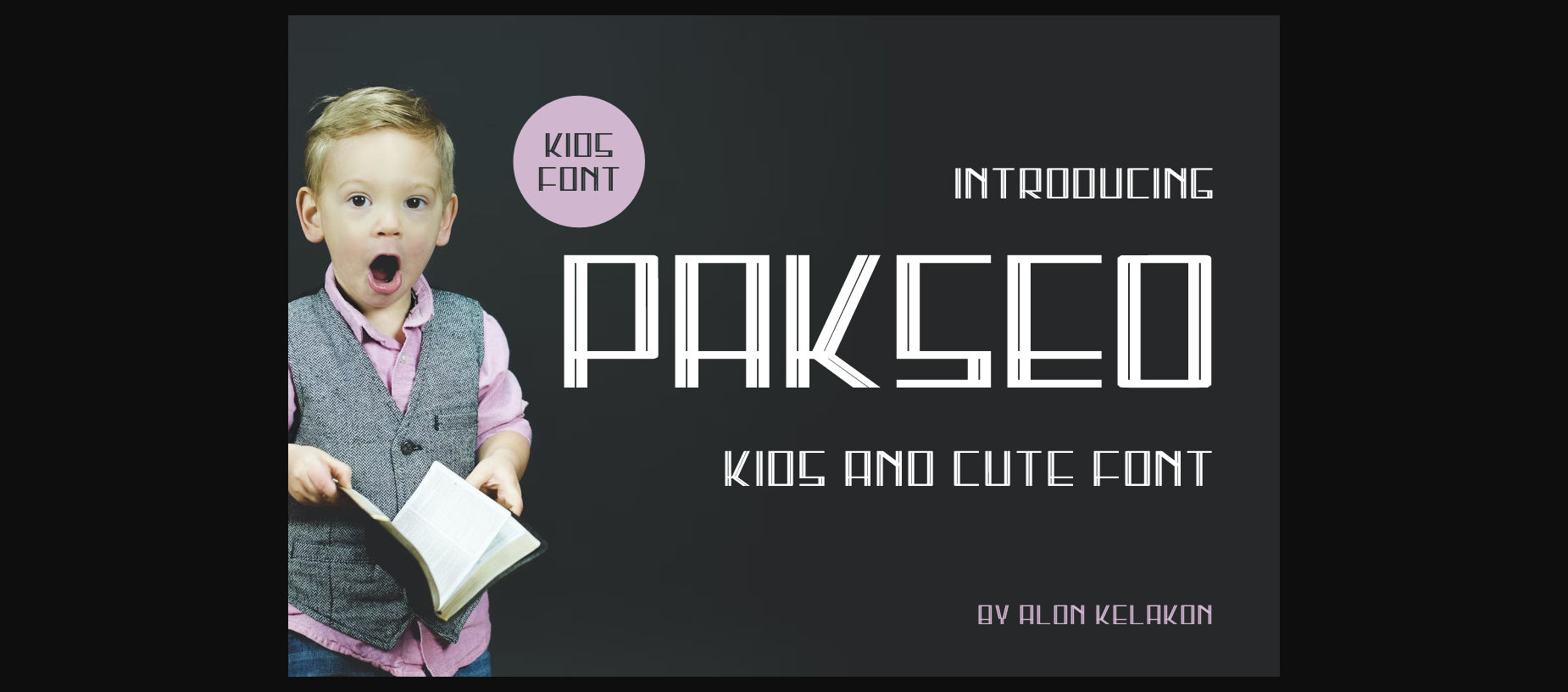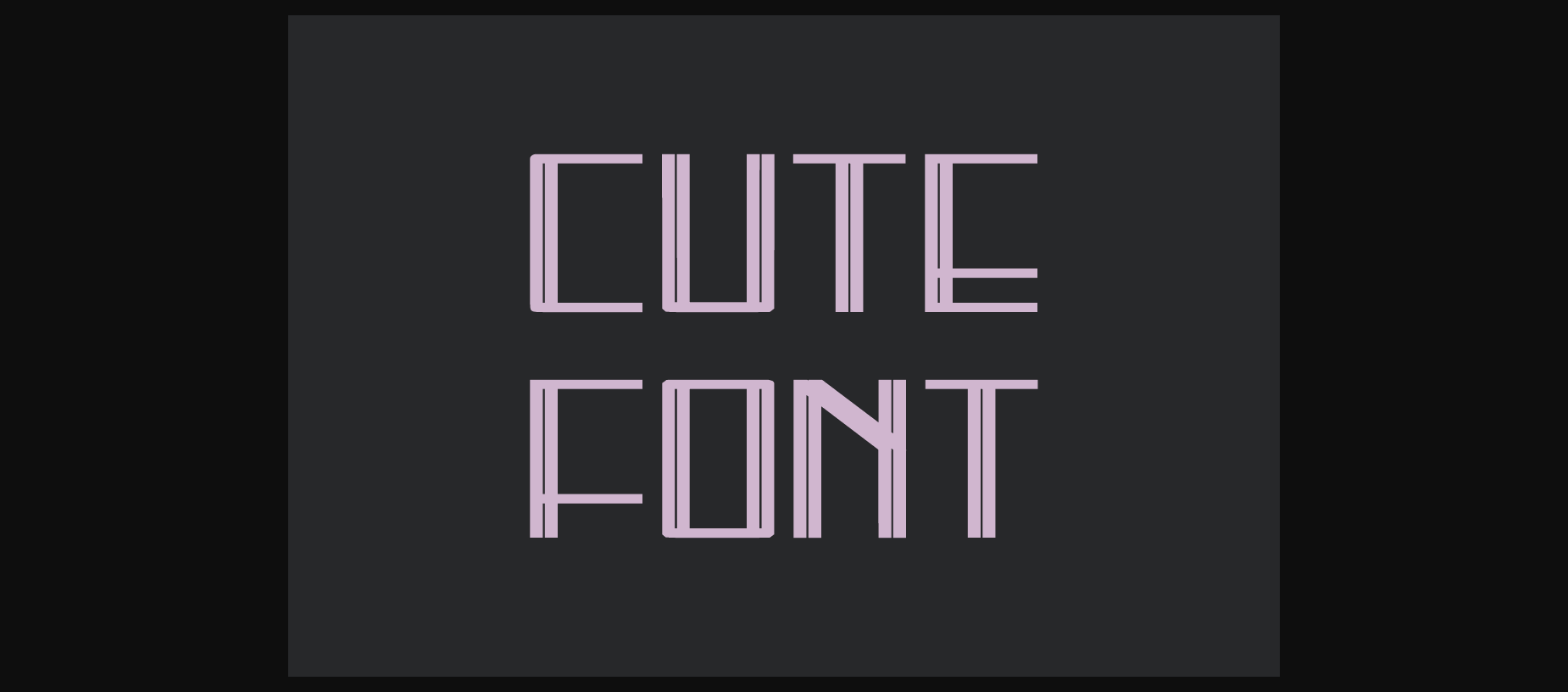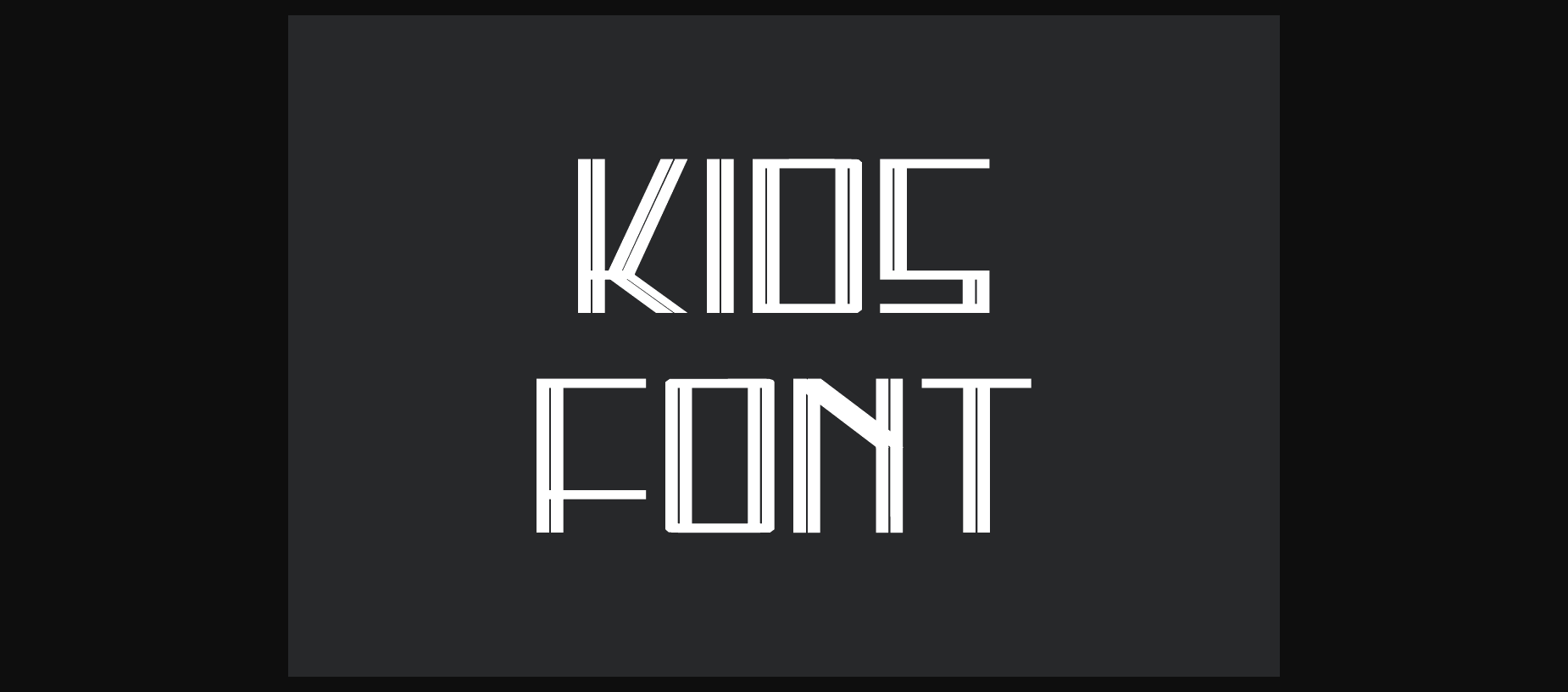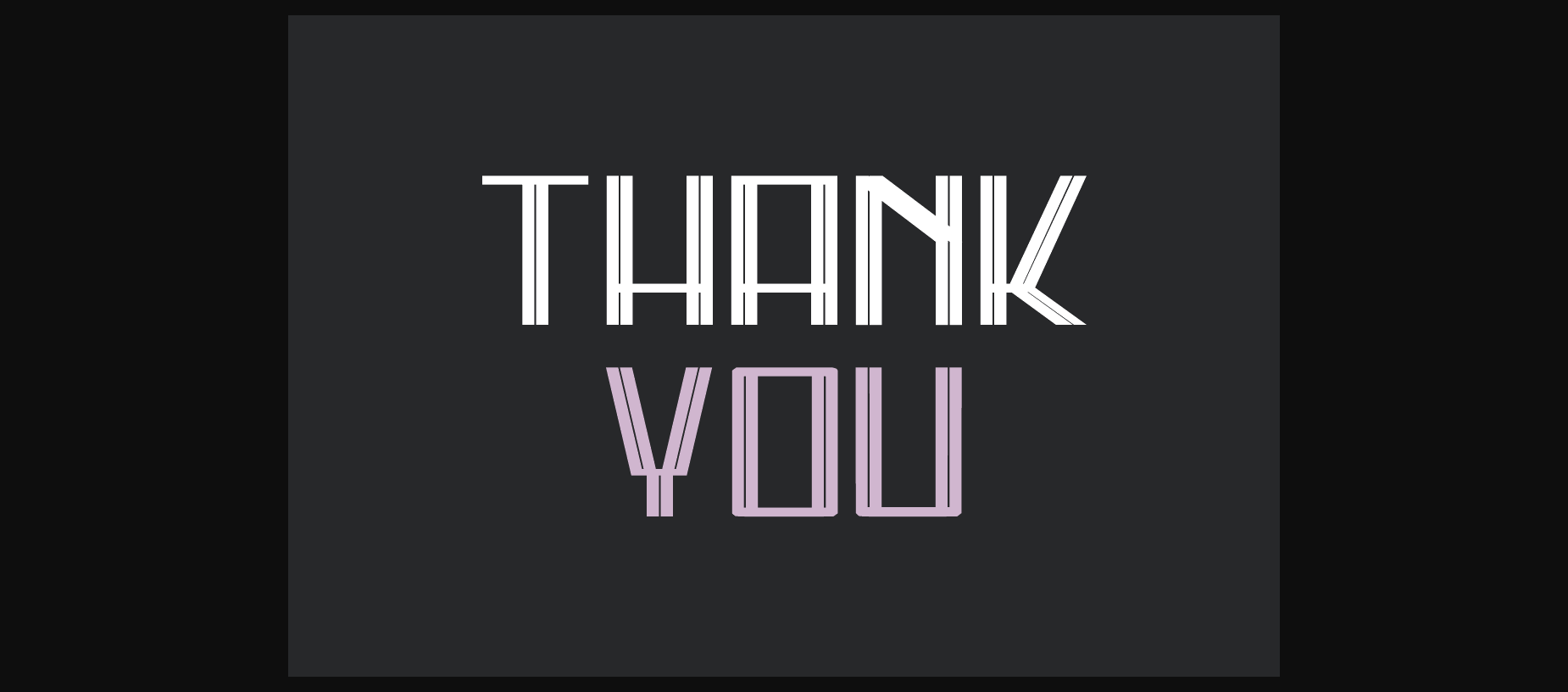
Pakseo Font
About Pakseo Font
Pakseo Font is an unique sans serif font. Ready to use for labeling, clothing, movie scenes, posters, movie titles, gigs, album covers, logos, and much more.